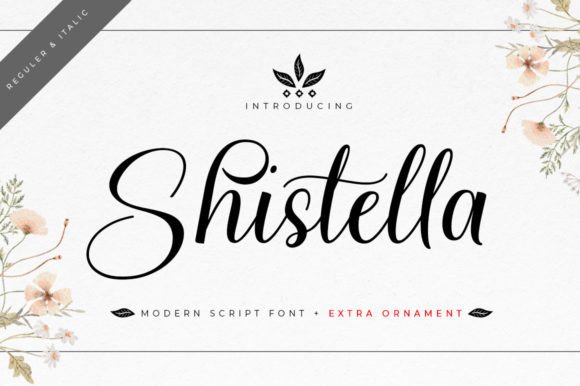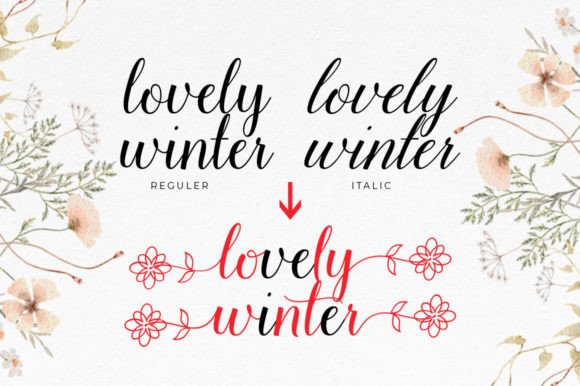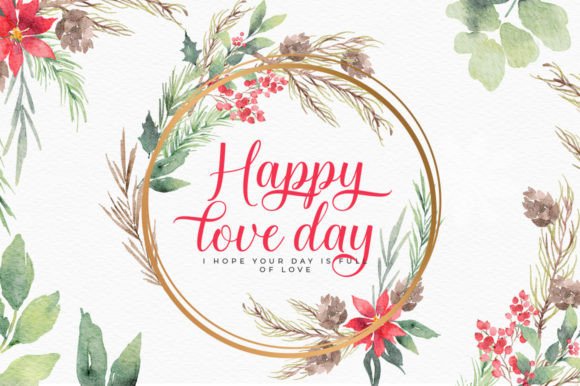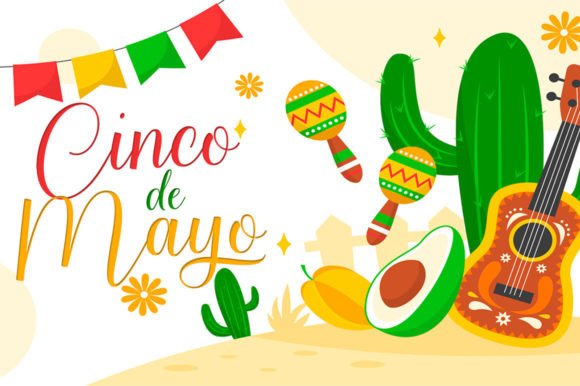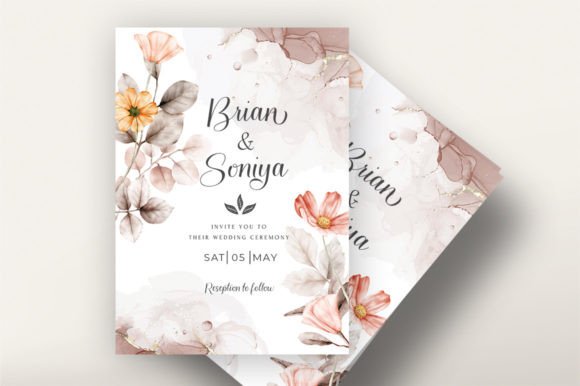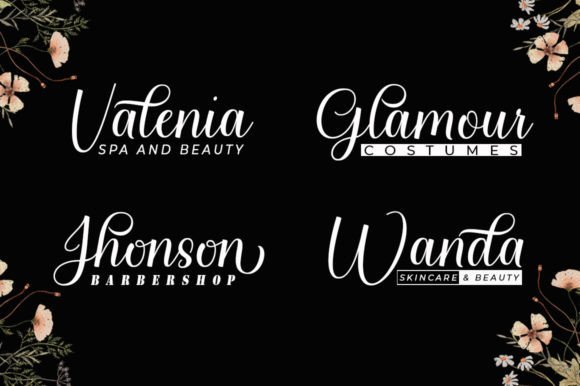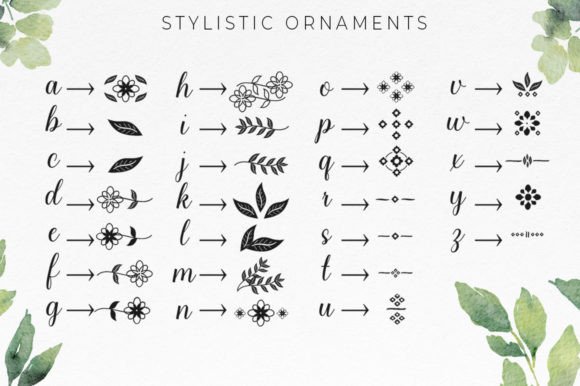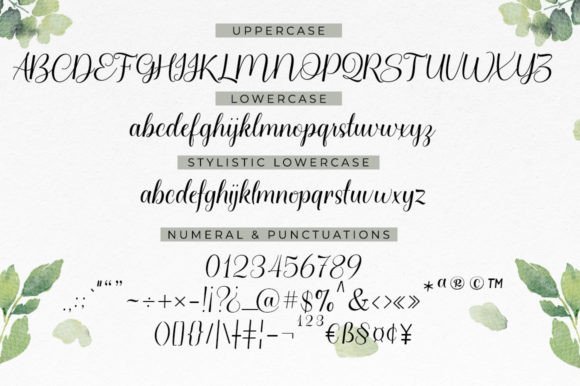
Shistella Font
Shistella is a new, elegant font with two variations of Regular, Italic and a beautiful Bonus Ornament that you can access right away. This font is made especially for those of you who need a beautiful touch to design your next project with perfect and stunning results. With a flower-shaped swash, it is perfect for many purposes. Such as titles, signatures, logos, correspondence, wedding invitations, letterheads, nameplates, labels, newsletters, posters, badges, branding, greeting cards, great for invitations, like greeting cards, and more!